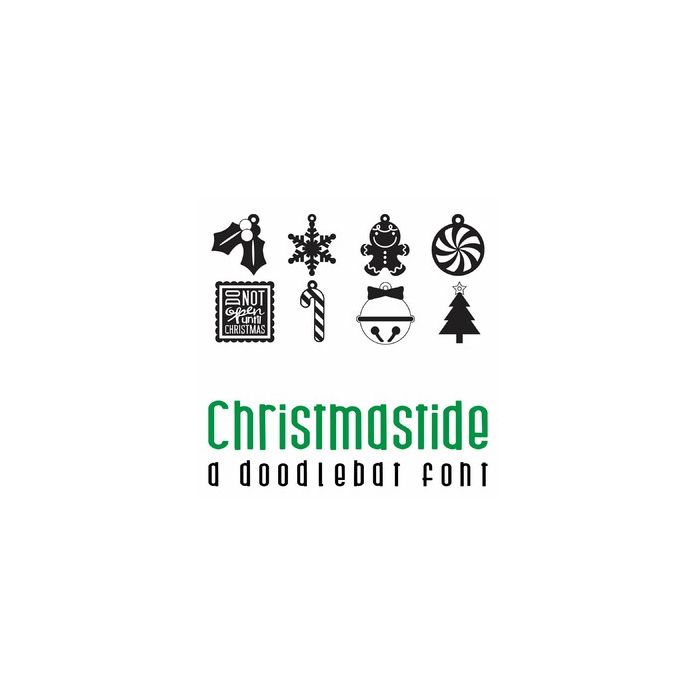
Christmastide Doodlebat Font
This fun doodlebat font features 26 Christmas tags. Perfect for cards, gifts, decor, crafts, scrap book pages, planner stickers and more!